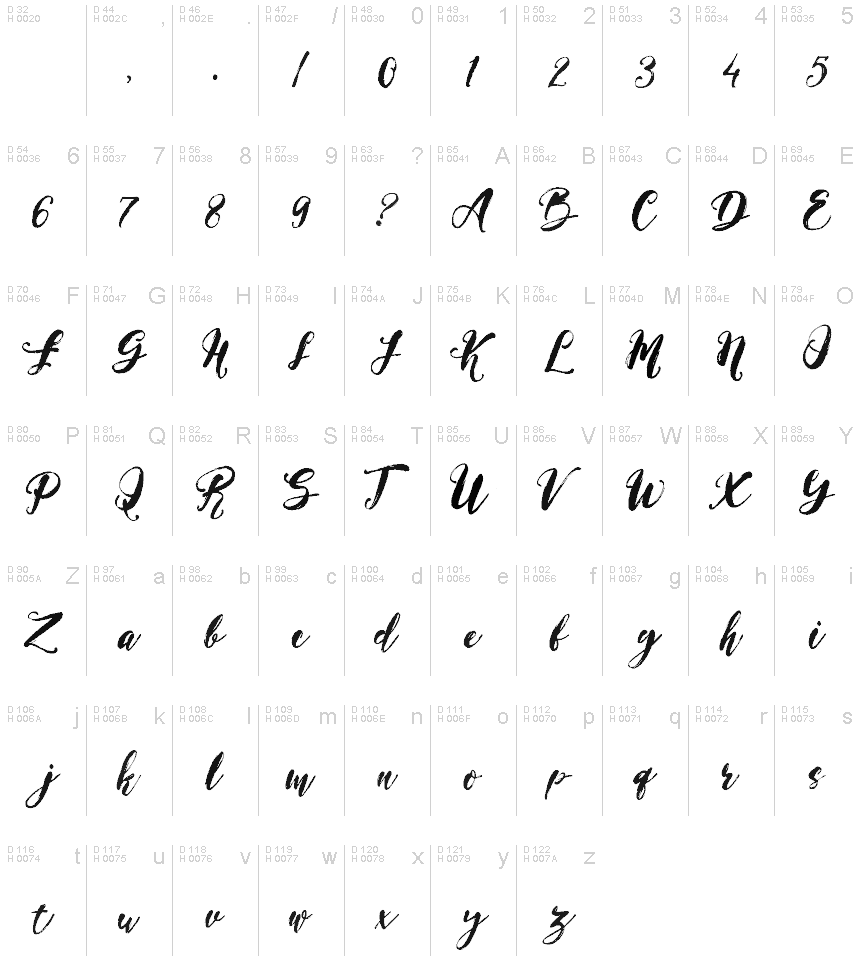
Magical Stylish Script Demo
Magical Stylish Script is a captivating brush font that exudes an enchanting, whimsical charm. With its fluid, organic strokes and elegant flourishes, this font effortlessly conveys a sense of artistry and sophistication. The striking contrast between the thick and thin lines, coupled with the subtle variations in the brush stroke, lend a truly mesmerizing quality to the typeface.
This font's versatility makes it an excellent choice for a variety of design applications, from wedding invitations and event branding to editorial layouts and product packaging. Its distinctive style can elevate any project, adding a touch of artisanal flair and timeless appeal.